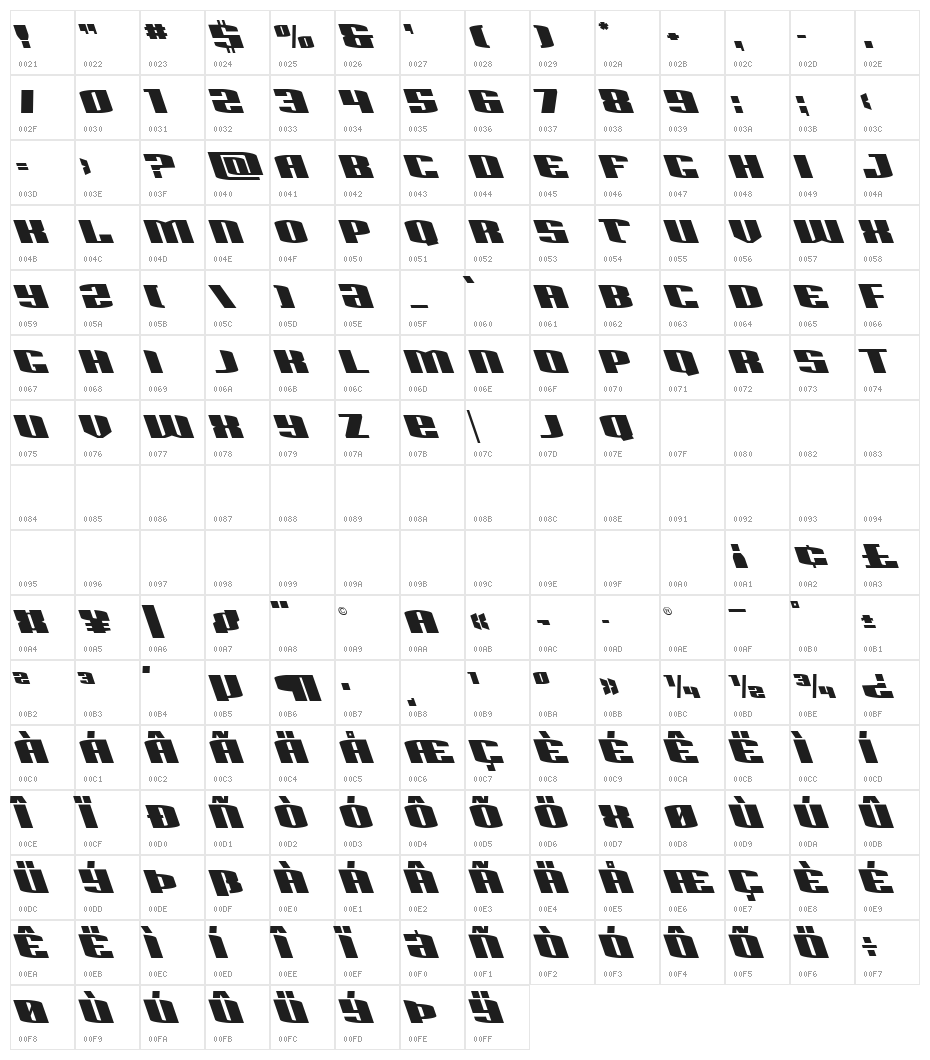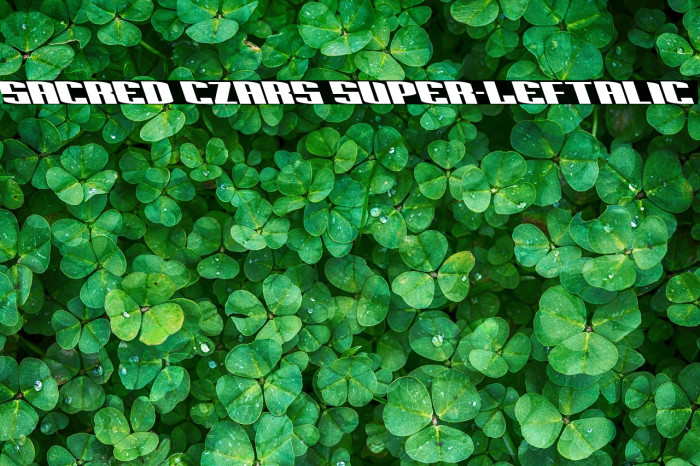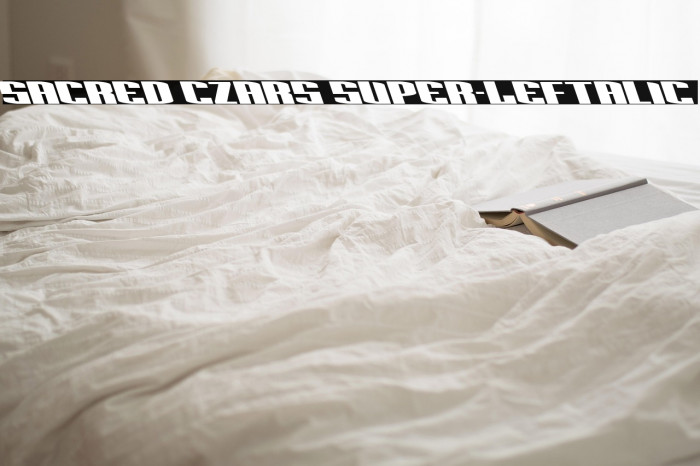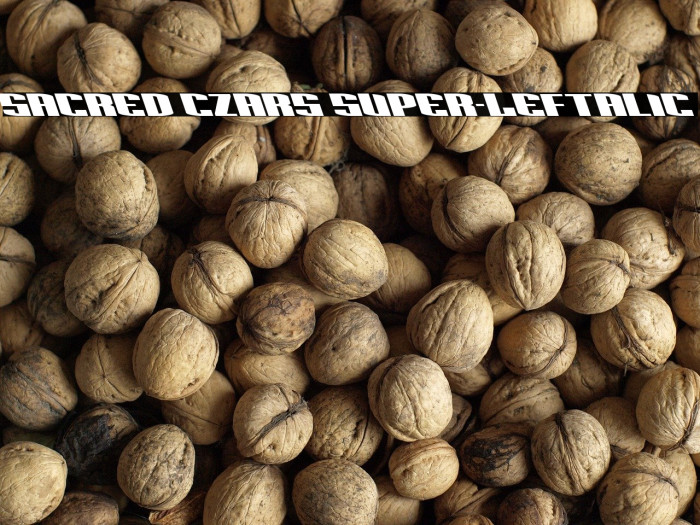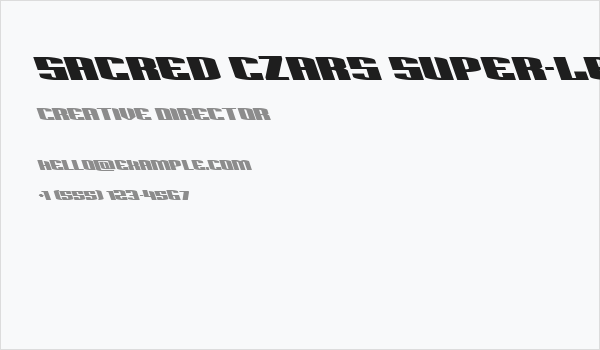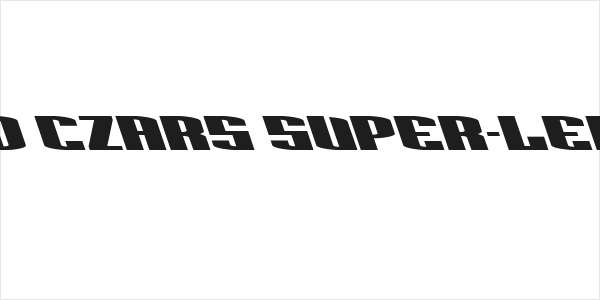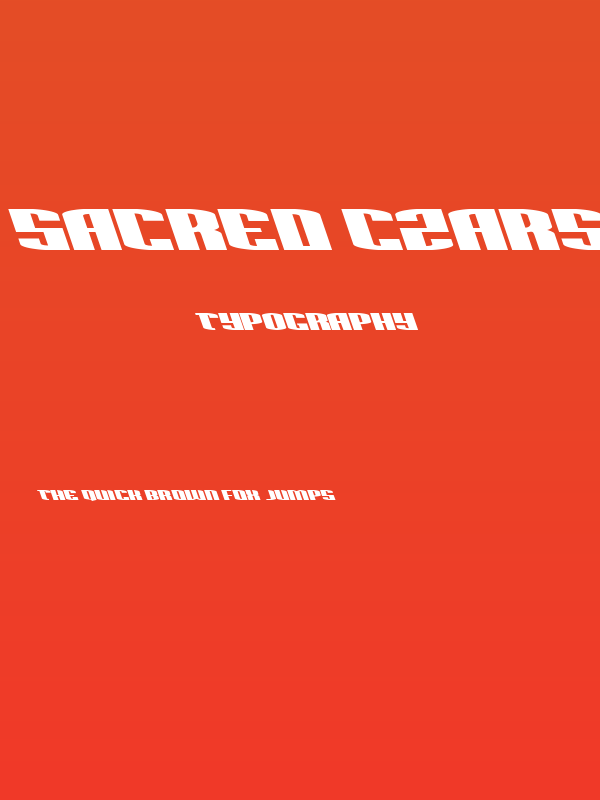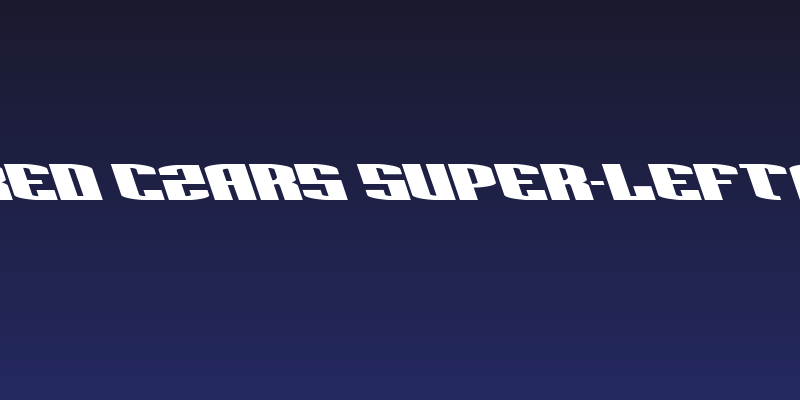
Sacred Czars Super-Leftalic Font
Sacred Czars Super-Leftalic Description
This font features a bold and dynamic style with a strong slant to the left, giving it a sense of motion and energy. The characters are wide and blocky, with sharp angles and a distinct geometric form. The uppercase and lowercase letters maintain a consistent style, while the numerals and special characters complement the overall aesthetic. The boldness of the font makes it stand out, ideal for attention-grabbing designs.